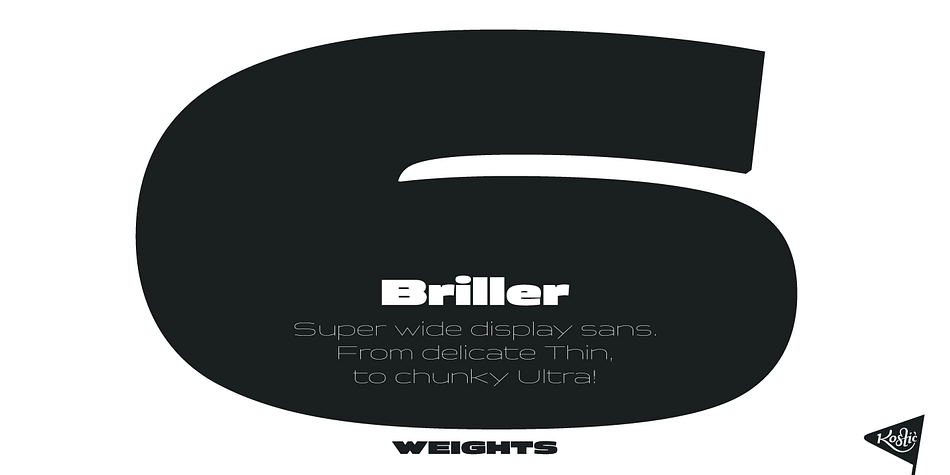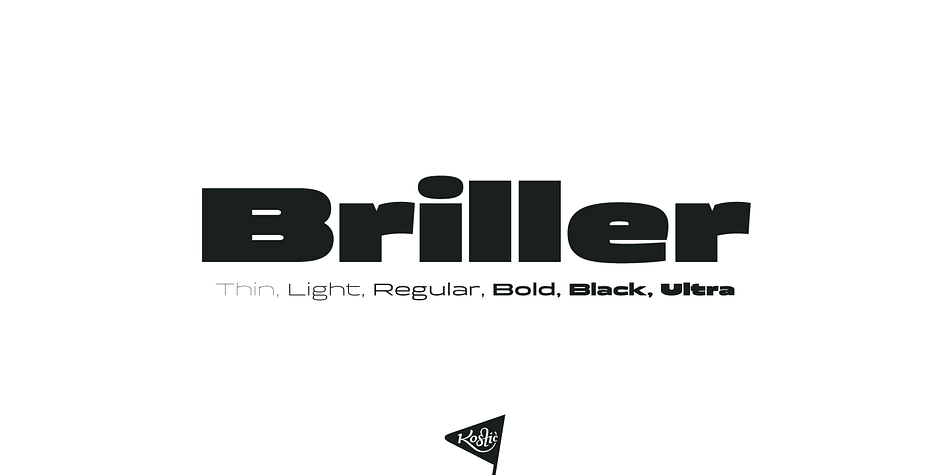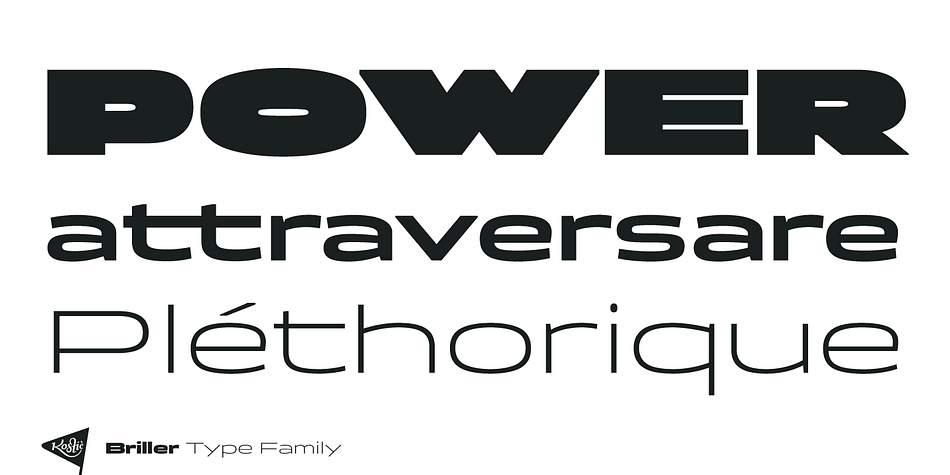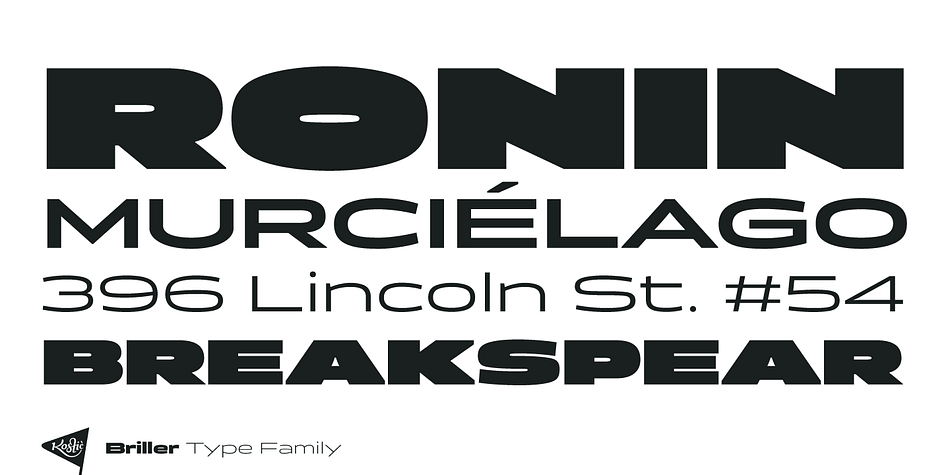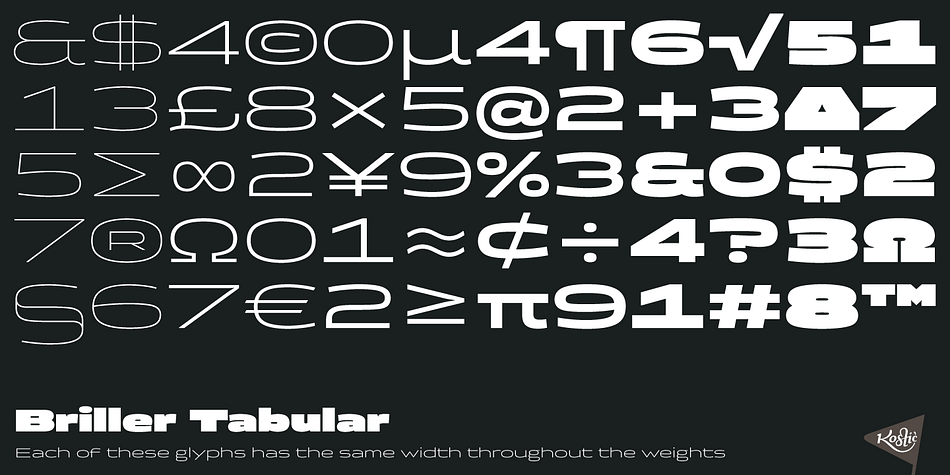
Briller is a display sans font family. This typeface has six styles and was published by Kostic Type Foundry.
Briller is a super-wide display sans that covers 6 weights, from delicate Thin on one side to chunky Ultra on the other end. Briller tabular figures (via the OT feature) and most of figure related glyphs (such as monetary symbols) are the same width throughout the weights, leaving fun possibilities in pairing them up in contrast while retaining that sense of tabular order.